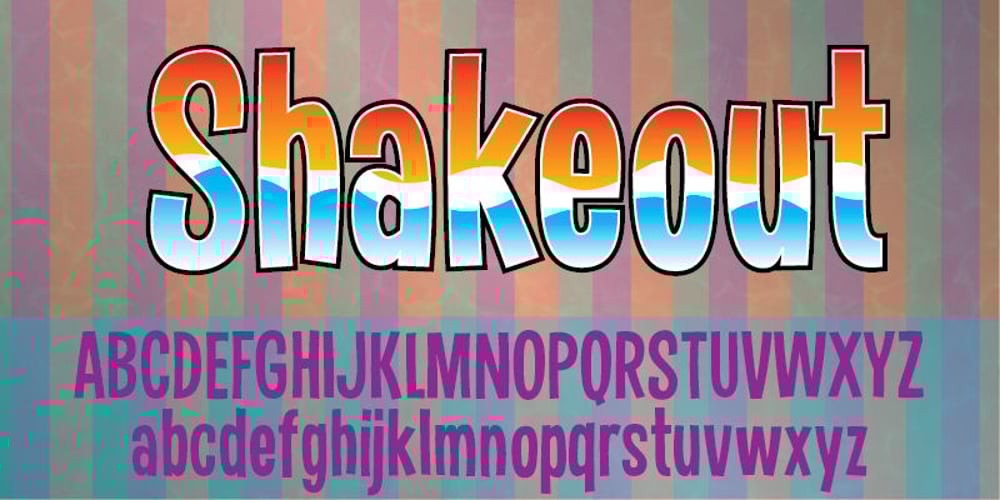
Shakeout
Shakeout font
Shakeout Font Family was designed by Jakob Fischer and published by PizzaDude.dk. Shakeout contains 1 styles and family package options. A legible sans serif, with bouncy edges. A little loose but not too jumpy! Comes with a fi and fl ligature.